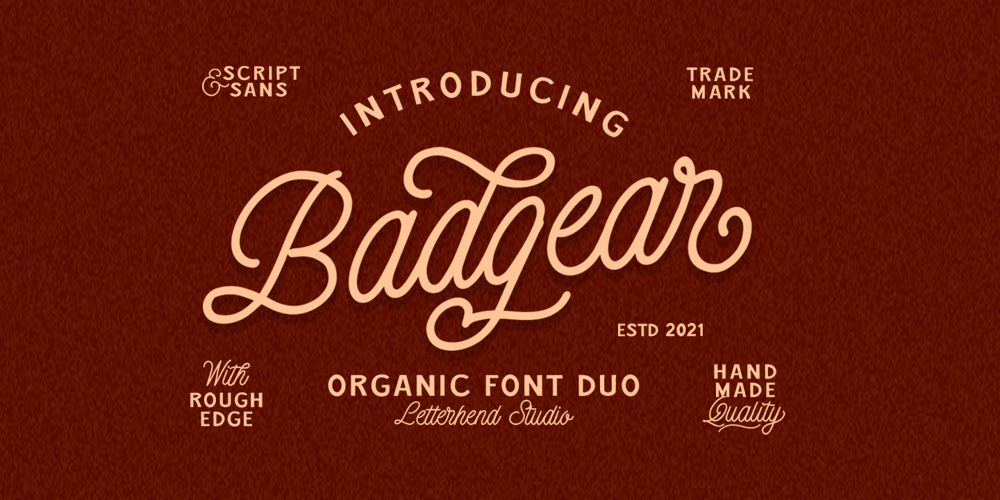
Badgear Font Family was designed by Hendry Juanda and published by Letterhend. Badgear contains 2 styles and family package options. About the ProductBadgear is an organic font duo consist of a bold monoline script paired with a sans serif with a touch of vintage look and feel. This type of font perfectly made to be applied especially in logo, headline, signage and the other various formal forms such as invitations, labels, logos, magazines, books, greeting / wedding cards, packaging, fashion, make up, stationery, novels, labels or any type of advertising purpose.Features : Badgear script and sans serif uppercase & lowercase numbers and punctuation multilingual alternates / swashes and ligatures PUA encoded We highly recommend using a program that supports OpenType features and Glyphs panels like many of Adobe apps and Corel Draw, so you can see and access all Glyph variations. How to access opentype feature : letterhend.com/tutorials/using-opentype-feature-in-any-software/